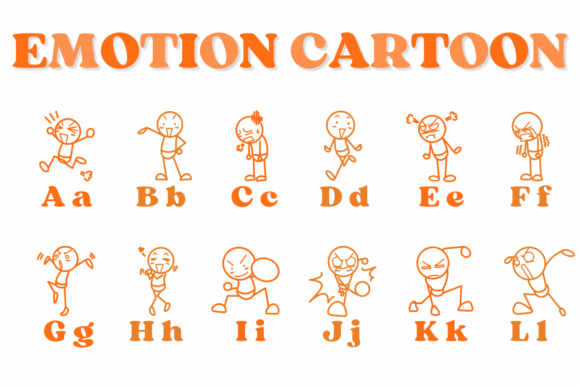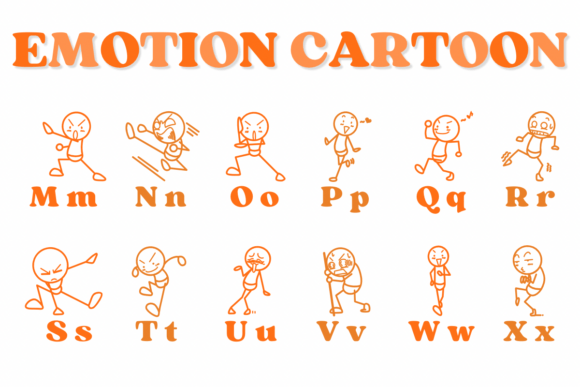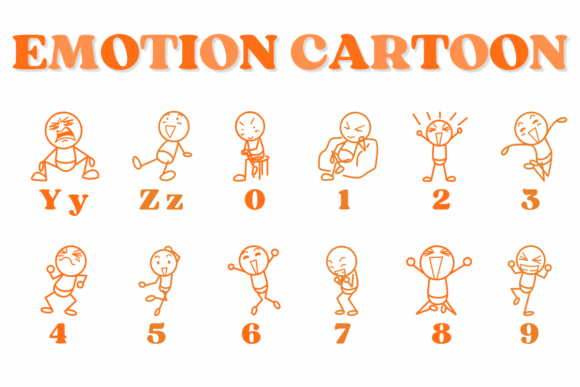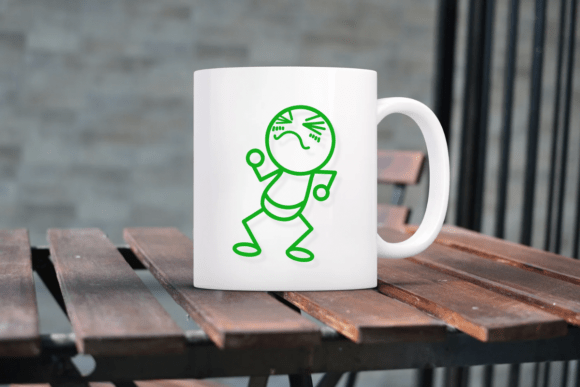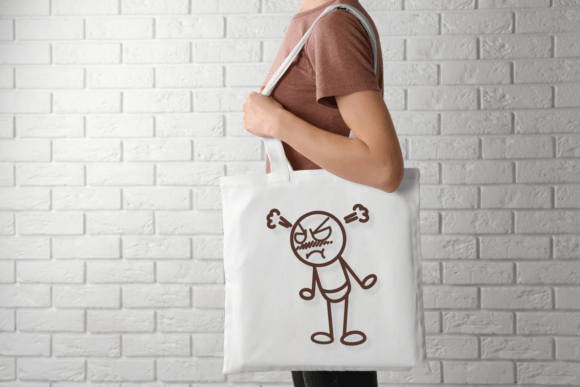
Introduction to Emotion Cartoon Font
As a designer, you’ve likely found yourself in the midst of a creative jam, staring at a blank canvas with a deadline looming. But then, it happens – a spark of inspiration strikes, and your project begins to take shape. For those moments when you need a little extra flair, the Emotion Cartoon Font is the perfect design resource to elevate your work.
With its sketched style and transparent background, this dingbats font is a high-quality addition to any creative project. Whether you’re crafting a wedding invitation, designing DIY decor, or working on a logo, the Emotion Cartoon Font is a valuable asset that can bring your ideas to life.
Key Features of Emotion Cartoon Font
• High-quality, hand-drawn design perfect for creative projects and design resources.
• Features a transparent background, allowing for easy customization and placement within your design.
• Includes a range of emotive characters and symbols, ideal for conveying emotions in your design work.
• Designed with a high resolution (300 DPI), ensuring crisp and clear visuals in both print and digital applications.
• Perfect for use in social media graphics, web design, and other creative projects where a touch of personality is needed.
Honest Review: Emotion Cartoon Font
I recently stumbled upon the Emotion Cartoon Font while searching for design resources for a creative project. I was immediately drawn to its playful and vibrant style, which I think would be perfect for a fun and lighthearted design.
What works well with this font is its high quality and the fact that it’s available for free download, making it a fantastic addition to any design resource library. The Emotion Cartoon Font is also highly versatile, with a wide range of emotions and expressions to choose from. ✨ It’s easy to see how this font could be used in a variety of creative projects, from social media graphics to children’s books.
The font’s transparent background is also a nice touch, allowing for seamless integration into any design. However, I did find that the font can be a bit overwhelming in large quantities, and some of the characters may not be as detailed as I would have liked. ⚠️ Additionally, the font is not suitable for professional or formal designs, as its playful nature may not be taken seriously.
Overall, I think the Emotion Cartoon Font is a great addition to any design library, but it’s essential to use it judiciously and in the right context.
• High-quality design
• Playful and vibrant style
How to Use Emotion Cartoon Font
Introduction to Emotion Cartoon Font
The Emotion Cartoon Font is a high-quality design resource ideal for creative projects requiring a playful and expressive touch. This versatile font is perfect for designers and artists looking to add a personal and emotive element to their work.
Tips for Getting the Most Out of Emotion Cartoon Font
• Use the font with a transparent background to create a clean and modern look.
• Experiment with different font sizes and styles to add emphasis and visual interest.
• Combine the Emotion Cartoon Font with other design elements to create a unique and engaging visual identity.
Common Use Cases for Emotion Cartoon Font
• Social media graphics and posts
• Marketing materials and advertising
• Children’s educational content and materials
• Personal projects and creative expressions
Alternatives to Emotion Cartoon Font
Comic Sans MS is a popular sans-serif font that is often used for creative projects, such as children’s books and advertisements. It is a high-quality font that can be used for both digital and print designs.
When to use: Comic Sans MS is best used for informal and playful designs, such as cartoon characters, comic strips, and children’s educational materials.
Comparison to Emotion Cartoon Font: Comic Sans MS is a more generic font compared to Emotion Cartoon Font, which is specifically designed for cartoon-style illustrations. However, Comic Sans MS is a free download and can be used for a wide range of creative projects.